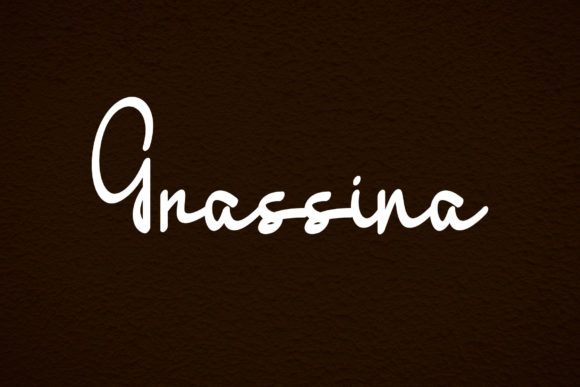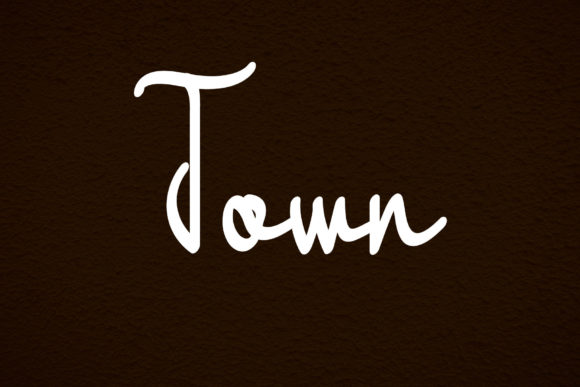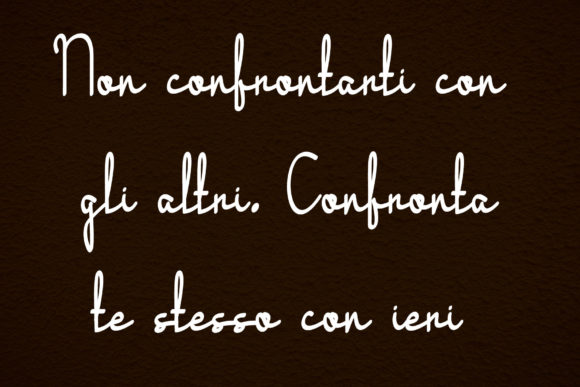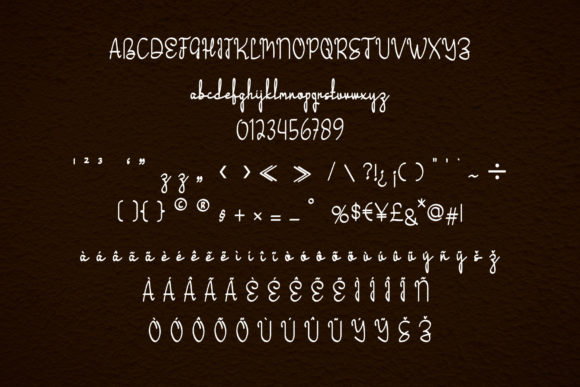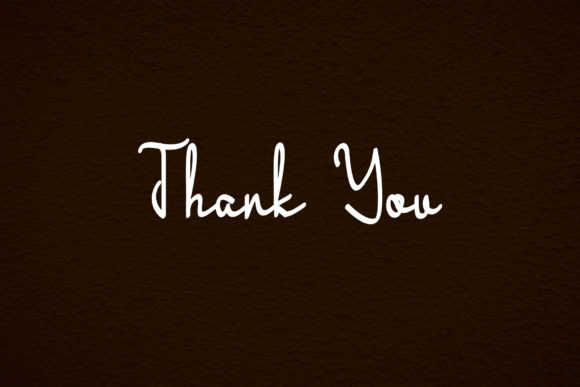
Grassina Font
About Grassina Font
Grassina is a sophisticated and elegant script font that exudes charm and refinement. With its graceful letterforms and stylish flourishes, it adds a touch of class to any project.
The script font of Grassina is meticulously designed, with attention to detail given to every curve and stroke. Its smooth and flowing lines create a sense of elegance and grace, making it the perfect choice for wedding invitations, branding materials, and other upscale designs. Whether you’re creating a logo, a greeting card, or a social media post, Grassina brings a touch of sophistication to your work.
One of the standout features of Grassina is its stylish alternates and ligatures. These additional letter variations and connecting characters enhance the overall aesthetic of the font, allowing you to create custom and unique typography. The alternates and ligatures provide you with more design options and help you achieve a personalized and refined look.
Versatility is another strength of Grassina. It effortlessly complements a wide range of projects, from high-end fashion and beauty brands to luxurious event invitations. Its timeless appeal and adaptable nature make it suitable for both digital and print designs, ensuring that your work stands out in any medium.
Whether you’re designing a logo, a packaging label, or a headline, Grassina brings a touch of sophistication and elegance to your typography. Its refined and chic style adds a sense of class and luxury to your projects, making them visually captivating and memorable.
With Grassina, you can confidently create designs that exude sophistication and elegance. The stylish alternates and ligatures provide you with endless possibilities to customize your typography, ensuring that your work is unique and captivating. Embrace the beauty of Grassina and elevate your projects to new heights of refinement.